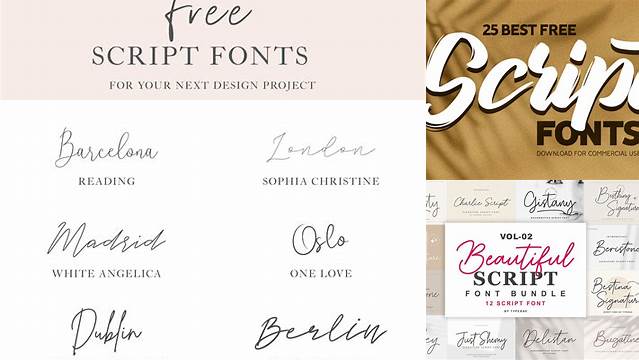
Download Free Clean Script Fonts For Stunning Designs
Hey design enthusiasts! Are you looking for the perfect typeface to add a touch of elegance, personality, or flair to your projects? Well, look no further, because we're diving deep into the world of clean script fonts and, the best part? They are all free! In this guide, we'll explore the beauty of these fonts, where to find them, and how to use them to create designs that will truly shine. Whether you're a seasoned designer or just starting out, understanding and utilizing the right fonts is crucial. Let's get started and explore the world of clean script fonts!
H2: What are Clean Script Fonts and Why Use Them?
Alright, let's get down to the basics. What exactly are clean script fonts? Think of them as the elegant cousins of the font family. Unlike their more elaborate, sometimes overly decorative siblings, clean script fonts offer a sense of sophistication and readability that's perfect for a wide variety of design projects. They mimic handwriting, calligraphy, and cursive styles, but with a focus on clarity and simplicity. This makes them incredibly versatile. Now, why would you want to use them? There are tons of reasons! First off, they instantly add a personal touch to your work. They feel more human, warmer, and less corporate than many sans-serif or serif fonts. They can convey emotions like grace, creativity, and romance effortlessly. Secondly, clean script fonts can elevate your branding. Imagine your logo, website header, or social media graphics with a beautifully designed script font – it immediately makes your brand feel more premium and professional. They are excellent for headlines, invitations, signatures, and even body text, although use of the latter requires careful consideration of legibility. Think about the kind of message you want to send. Do you want to be perceived as approachable, creative, or high-end? A well-chosen script font can do the trick. When selecting a clean script font, consider its weight, style, and overall design. Look for fonts that are easy on the eyes and flow naturally. A well-designed script font will have a consistent rhythm and character that will add a sense of harmony to your work. In short, by opting for clean script fonts you are choosing to add a layer of elegance, personality, and sophistication to your designs, ensuring your message resonates with your target audience.
H3: Characteristics of High-Quality Clean Script Fonts
So, how do you spot a high-quality clean script font amongst the sea of options out there? Here's a breakdown of key characteristics to look for. First and foremost, legibility is key. A great script font should be easy to read, even at smaller sizes. Watch out for fonts where the characters are too intertwined or complex, as this can strain the eyes. Look for a consistent stroke weight – this refers to how thick or thin the lines of the font are. A consistent stroke weight creates a harmonious and balanced look. Avoid fonts with drastically varying stroke weights, as they can appear cluttered. Pay close attention to the kerning – the spacing between letters. Good kerning ensures that the letters are spaced appropriately, creating a smooth flow and preventing awkward gaps or overlaps. Excellent kerning is crucial for the readability of script fonts. Another key feature is the presence of alternate characters. These are variations of the same letter that add uniqueness and flair. A font with several alternate characters allows you to customize the look of your text and create a more organic, hand-written feel. A rich character set, meaning a full complement of letters, numbers, punctuation, and symbols, is also important. Ensure the font includes everything you need for your project. Also, consider the overall design and style. Does it complement your brand or project? Look for a font that feels original and well-crafted. A well-designed script font will have unique details that set it apart. Finally, think about the licensing. Always ensure that the font is available for commercial use if you plan to use it for business purposes. Some free fonts are for personal use only. Keep these characteristics in mind when you are looking for clean script fonts.
H2: Designing with Clean Script Fonts: Best Practices
Alright, you've found your perfect clean script fonts. Now, how do you actually use them effectively in your designs? Here are some best practices to get you started. First, choose the right font for the job. Consider the project's purpose and the message you want to convey. Is it for a wedding invitation, a fashion blog, or a business presentation? The font should align with the project's overall tone and style. Less is often more when working with script fonts. They tend to be most effective when used sparingly, such as for headlines, titles, or short pieces of text. Overusing a script font can make your design look cluttered and difficult to read. It’s a good idea to pair your script font with a clean, readable sans-serif or serif font for body text. This creates visual contrast and improves readability. Make sure your script font is easily legible. Avoid excessively ornate or complex script fonts, especially at smaller sizes. If the text is hard to read, your message will be lost. Experiment with the size and spacing of your script font. Use a larger font size for headings and titles, and adjust the kerning (spacing between letters) to create a balanced look. Kerning is particularly important for script fonts to make the text flow smoothly. Consider the color and background of your script font. Make sure there's sufficient contrast between the font color and the background to ensure readability. Avoid placing script fonts on busy backgrounds or using colors that blend in too much. In addition to this, align text carefully. Choose a script font that fits the overall style of your design. A delicate, flowing script font will be ideal for a feminine brand, while a bold, modern script might suit a more contemporary look. By following these best practices, you can utilize clean script fonts with confidence. Get started!
H3: Pairing Clean Script Fonts with Other Fonts
Let's talk about the art of pairing clean script fonts with other fonts to create visually stunning designs. Choosing the right font pairings is crucial for balance and harmony. The key is to create contrast, ensuring that both fonts complement each other without clashing. Usually, you’ll want to pair a script font with a more neutral font. A clean sans-serif font is a popular choice because it provides a clean and modern contrast to the elegance of the script font. Think of fonts like Open Sans, Montserrat, or Lato. They are easy to read and provide a great visual balance. Another option is to pair your script font with a classic serif font. This combination can create a sophisticated, traditional look. Fonts like Garamond or Georgia work well with scripts, especially for projects that require a touch of elegance. Another approach is to pair a bold script font with a lighter sans-serif font. This provides a strong visual impact and makes your headlines pop. Experiment with different weights and styles of your font pairings to find what best suits your project. Do some research on design trends. Look at font pairing examples in other designs and websites. Check out design resources and blogs for inspiration and examples. Remember, good font pairings are not just about aesthetics, they also affect readability. By using the right combination of fonts, you can make your message more readable and enjoyable for your audience.
H3: Online Tools and Software for Font Management
Let's look at some online tools and software that can help with clean script fonts. First, you can use online font pairing tools. These tools help you find the perfect font combinations. You can use them to find the perfect match! Then there is font management software. These tools will help you manage, organize, and preview fonts on your computer. Next, consider the tools available within your design software. Choose programs like Adobe Photoshop or Illustrator, and Canva. These programs offer you the tools for importing, managing, and customizing your fonts. Finally, consider online readability checkers. By utilizing these tools, you will be able to manage and make use of your fonts with style.